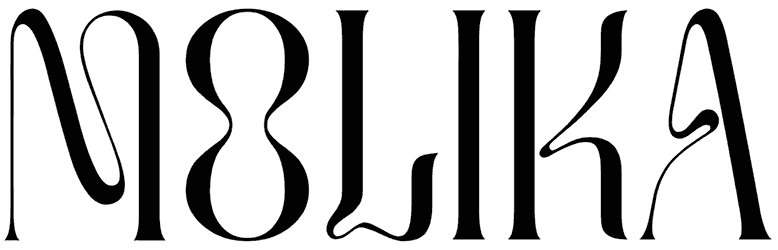
Molika Font
Let’s look at Molika, a serif font with elegant bending lines, making your design look authentic and modern while reflecting a luxurious impact that attracts all attention to it and stays in mind for a long time. This fashion font can be applied to many kinds of applications, such as fashion branding, product packaging, party invitations, album covers, and advertising.